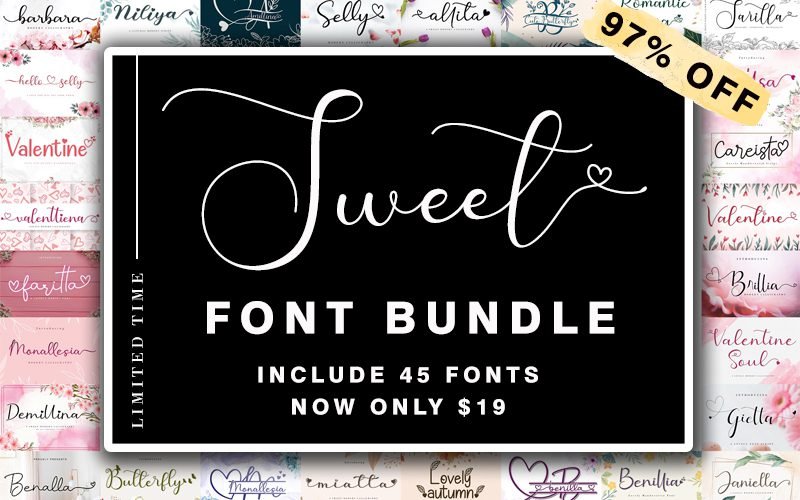
Sweet Fonts Bundle For Cute & Lovely Designs!
We know everyone’s struggle to make the graphics look more pretty, feminine, romantic, and loveable! The easiest way to make an ordinary graphic look cute & dainty, is to adorn it with the right fonts!
Here’s a bundle of sweet fonts that are dedicated to make your graphics look “Cute & Lovely”.
This fonts bundle comes with hundreds of glyphs, alternates, ligatures, swashes, and international language support.
Fonts Included In This Sweet Fonts Bundle:
Alessea
Allesia
Allitta
Amillina Monogram
Amillina Script
Aurona
Aynilla
Barbara Calligraphy
Benalla
Benilla Monogram & Modern Calligraphy Script
Benillia
Brillia
Careista
Cute Butterfly Monogram
Cute Butterfly Script
Demillina
Monallesia Monogram
Monallesia Script
Melline
Miatta
Selitta
Selly
Summer Calling
Sweet Allita
Valentine Cute
Valentine Soul
Valenttiena
Janiella
Lathi
Lattiefa
Leytta
Sarilla Script
Niliya
Easter Joy
Faritta
Gietta
Giette
Hamuna
Hello Selly
Pretty Valentine
Ravenna
Romantic Spring
Sallsa
Sandwell
Lovely Autumn
A Sneak Peak Into The Sweet Fonts Bundle:
Features & Compatibility Of The Sweet Fonts Bundle:
This bundle comes with hundreds of glyphs, alternates, ligatures, and swashes.